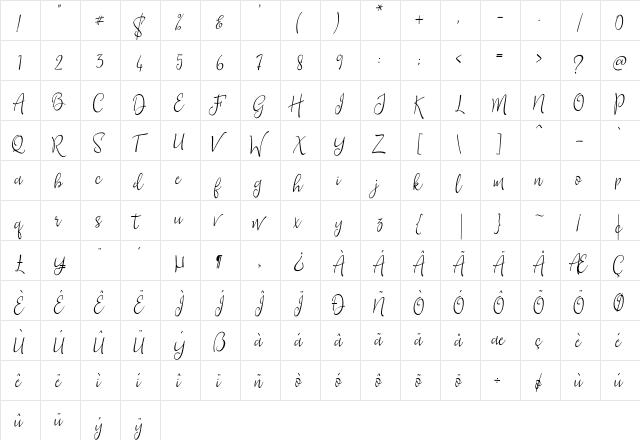
Sepatik Script Regular
| Foundry | BonjourType |
| Designer | Rachma |
Design Context for Sepatik Script Typeface
Sepatik Script brings a calligraphic fluidity to the page — its connecting strokes and expressive curves give it an unmistakably human quality.
Font Pairing: Combine Sepatik Script with a simple geometric sans for maximum contrast — the tension between flowing curves and clean structure is a classic typographic pairing.
Pro Tip: Pair Sepatik Script with a clean sans-serif for supporting text. The contrast between fluid script and geometric structure creates an elegant typographic hierarchy.